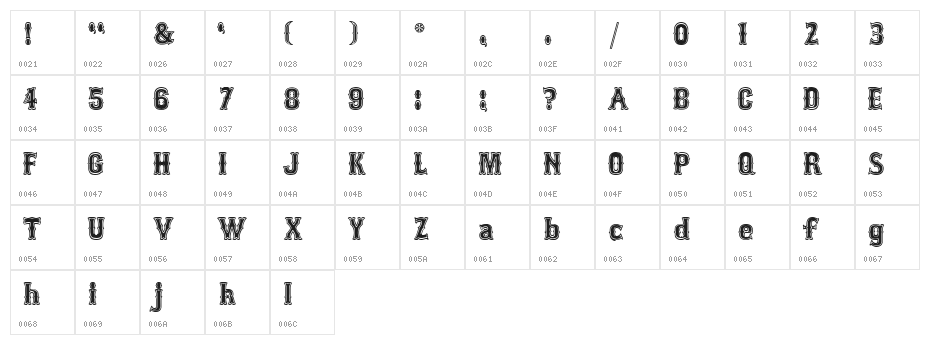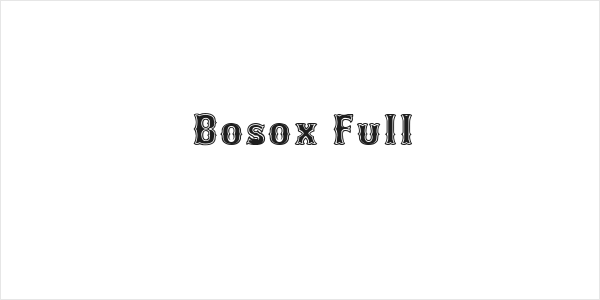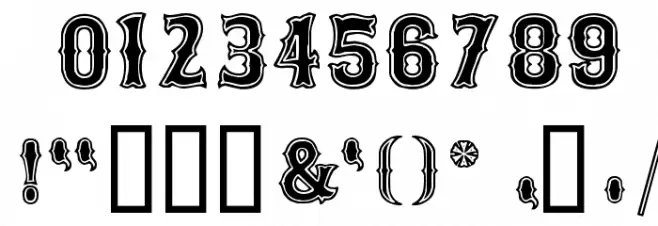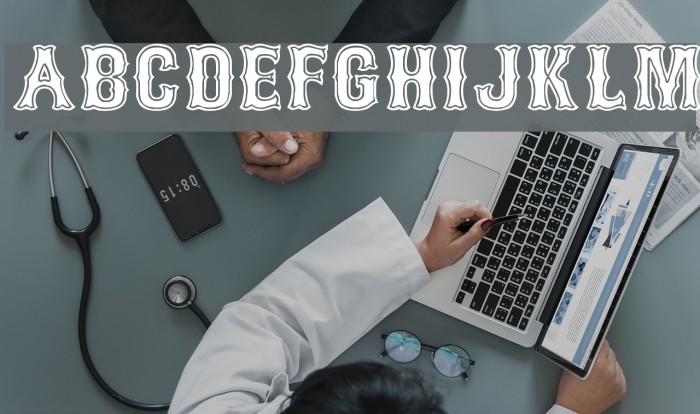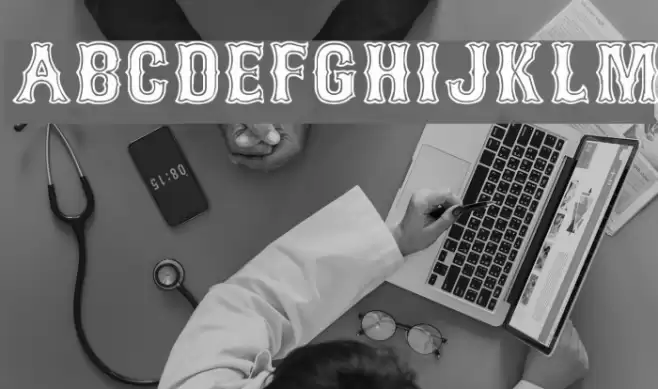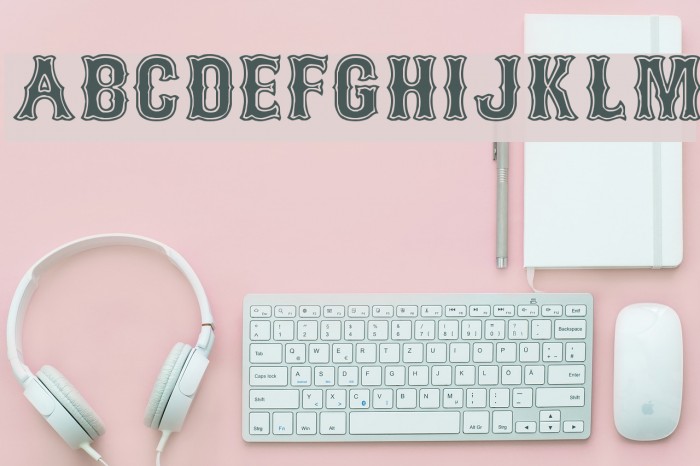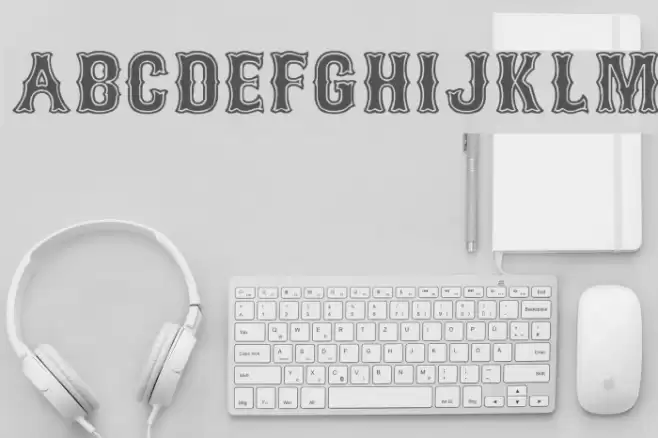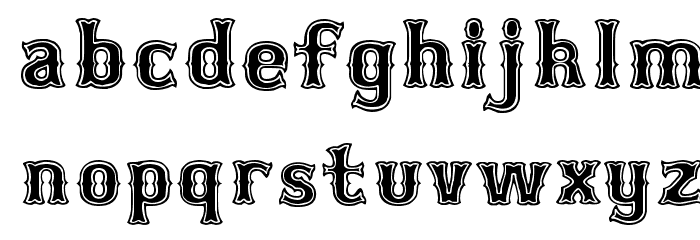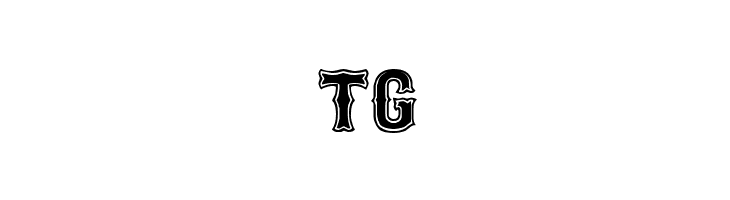
Bosox Full Font
Bosox Full Description
This font features a bold and decorative style with a strong vintage flair. Each character is outlined with a thick, shadowed border that adds depth and dimension, making it stand out prominently. The letterforms are characterized by their unique, slightly irregular shapes, which give them a handcrafted appearance. The uppercase and lowercase letters maintain a consistent style, with the uppercase being slightly more pronounced. Numbers and special characters follow the same decorative theme, ensuring a cohesive look across all text elements. The font's intricate design makes it ideal for projects that require a touch of nostalgia and creativity.
| Overall Style | Vintage |
| Use Case | Logos, Headlines, Posters |
| Proposed Projects | Ideal for vintage-themed posters, logos, and branding materials that require a bold statement. |